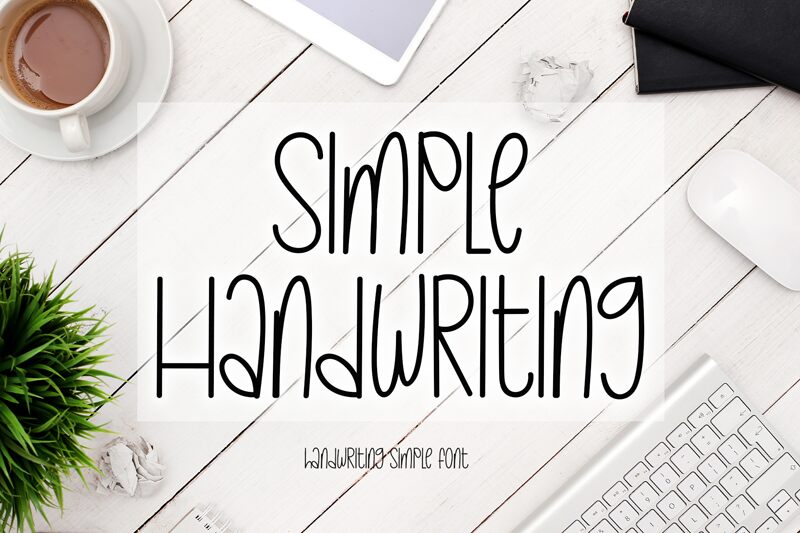
Simple Handwriting
Simple Handwriting, crafted by preketek texs, embodies the charm of personal touch with its handwritten style that brings an authentic and approachable feel to every word. The condensed nature of this font adds a certain warmth and familiarity, reminiscent of notes passed between friends or a quick scribble in a diary. Its unassuming elegance lies in its fluidity and the organic variation in stroke width, which mimics the natural rhythm of pen on paper.
Perfect for projects that demand a dose of personality, Simple Handwriting is versatile enough to grace everything from personalized stationery to unique branding materials. It invites readers into an intimate space, making it ideal for heartfelt invitations or casual messages that aim to foster a connection with the audience.
This font retains a classy calligraphic influence while feeling contemporary and fresh. This versatility will attract a wide range of creative ideas, from letterheads and titles to stationery.